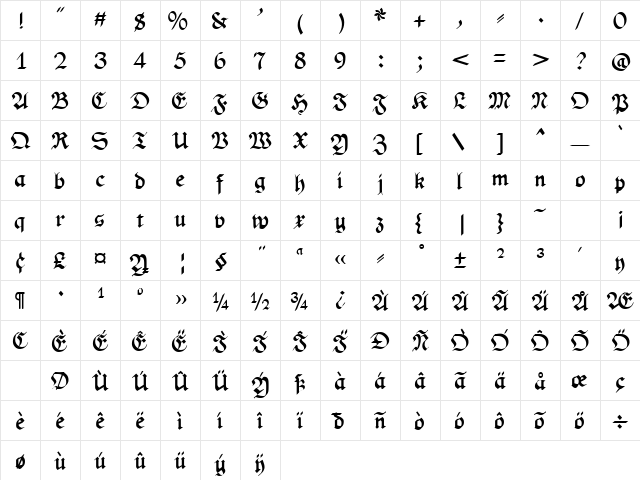
PhederFrack Bold
Design Context for PhederFrack
PhederFrack is a composed and adaptable typeface that performs quietly and consistently across a wide range of design contexts. Its bold stroke weight gives it real presence on the page.